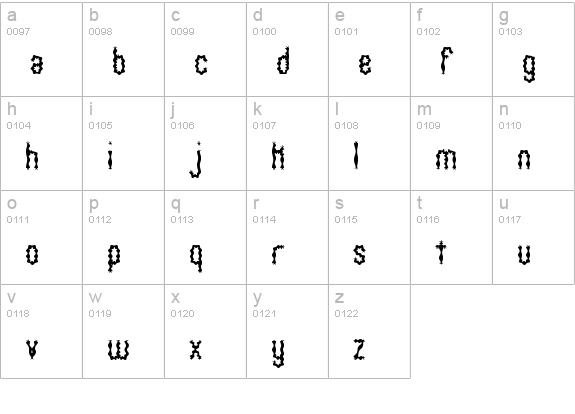
Wiggly Squiggly -BRK- Font Details
Introducing Wiggly Squiggly -BRK-, a whimsical and playful font that will bring a touch of fun to any creative project. With its charmingly irregular letterforms and wiggly squiggles, this font exudes a sense of joy and lightheartedness. Wiggly Squiggly -BRK- is perfect for adding a unique and lively twist to your designs, whether it's for invitations, greeting cards, posters, or even digital artwork. Its quirky and animated appearance will instantly grab attention and inject a sense of personality into your projects. One of the best parts about Wiggly Squiggly -BRK- is that it is freely available to download at FontsMarket.com. Yes, you read that right! This fantastic font can be yours at no cost, allowing you to unleash your creativity without any limitations. So, why wait? Head over to FontsMarket.com and get your hands on Wiggly Squiggly -BRK- today. Whether you're a designer looking for a captivating typeface or simply someone who wants to add some fun to their written communication, this font is the perfect choice. Don't miss out on this opportunity to elevate your designs and bring a smile to the faces of your audience. Download Wiggly Squiggly -BRK- now and let your creativity soar!